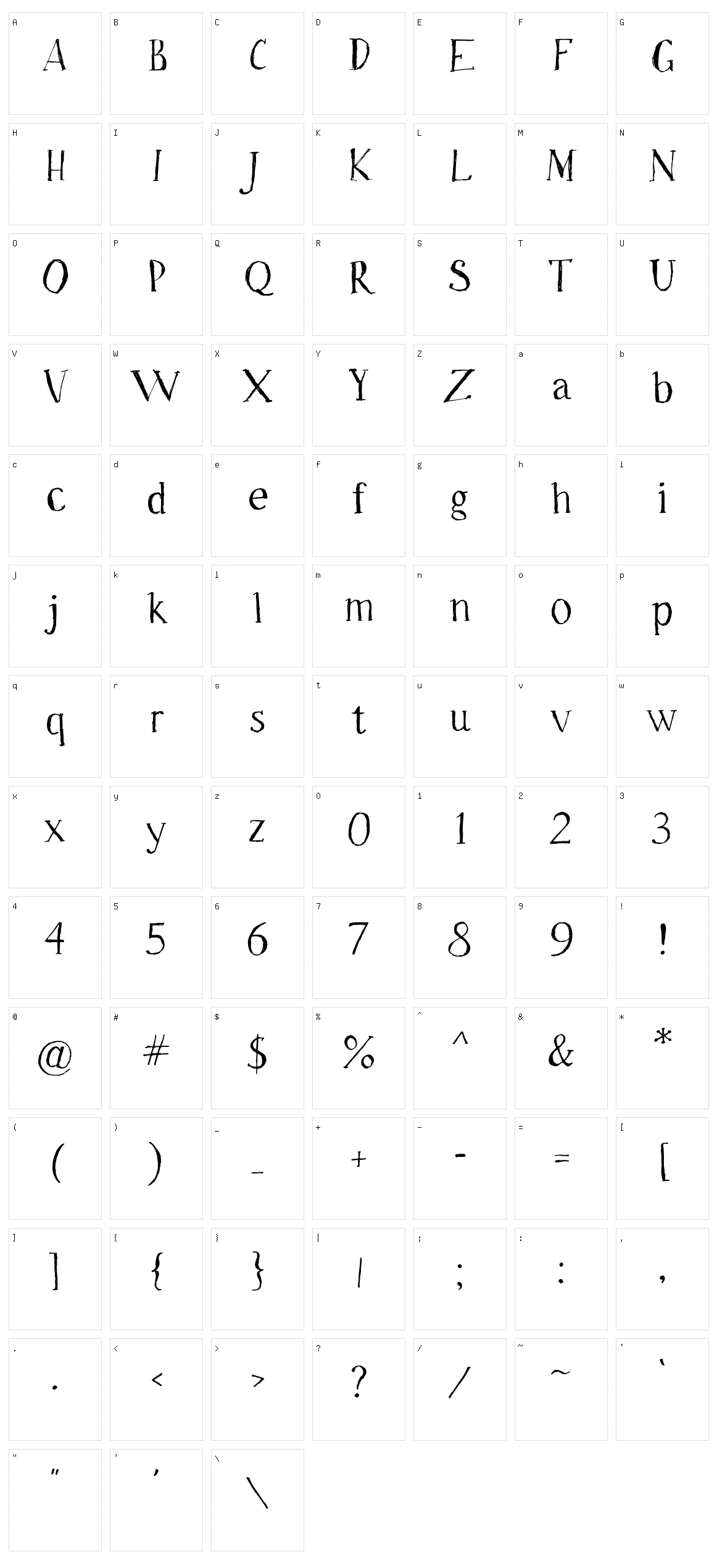
The free font Freeride is carefully designed by Jovanny Lemonad, showcasing a thoughtful balance of creativity and usability and falls under the Eroded font style. When you download the ZIP file, it contains only 260.5 KB of font files, making it lightweight and quick to download. Please review the license details below to understand permitted usage and distribution rights. If license information is not available, we recommend using this font for personal projects only or contacting the author directly for commercial usage permissions.